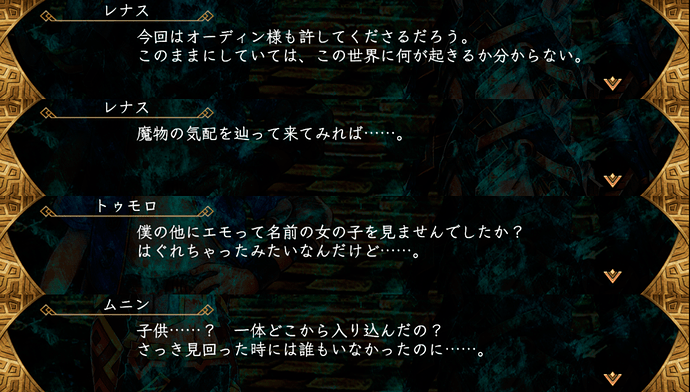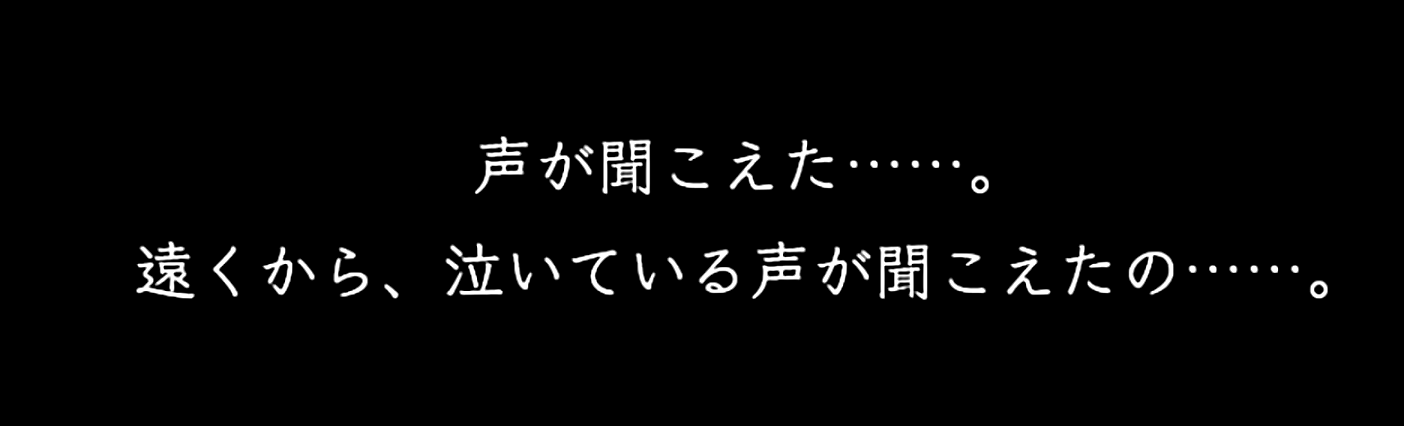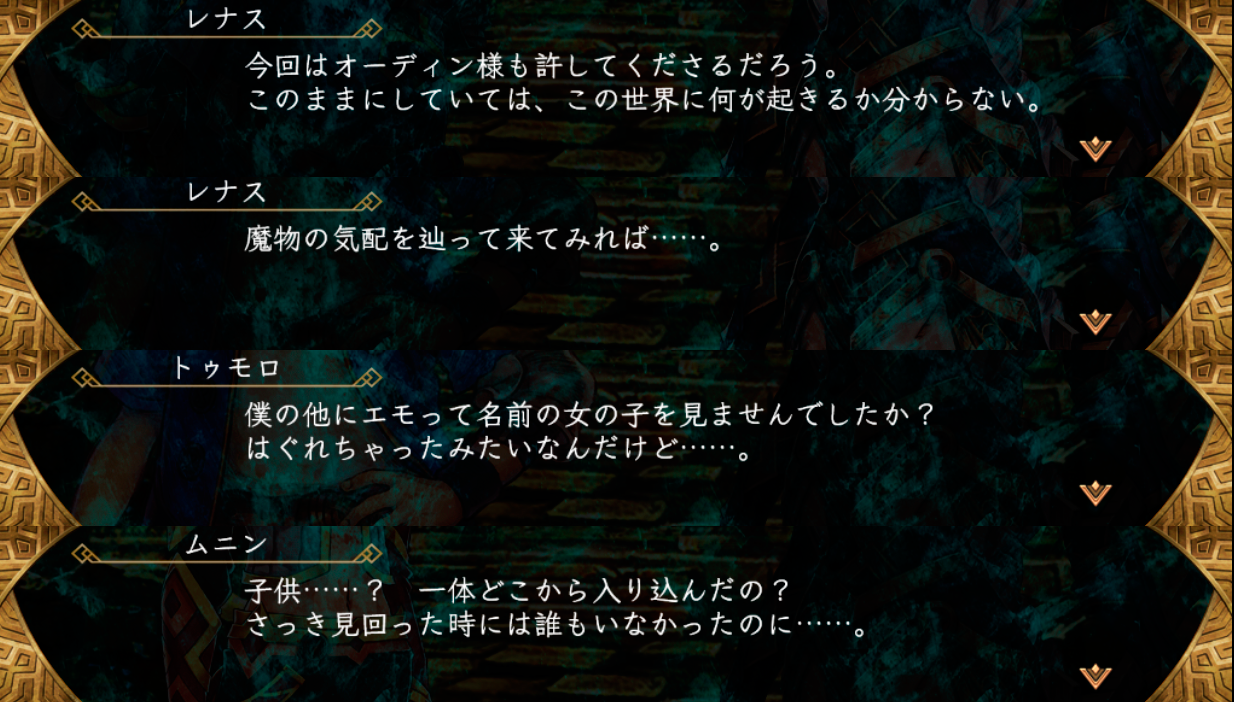
I play the mobile game Valkyrie Anatomia, and I really love the font it uses. It’s light and somewhat delicate, keeping all the kanji components easily visible because of it, so it’s great for me to practice with. (And yes, I practice with the denser web-typical fonts as well.) Anyways, I was wondering if anyone knows what this font is, or knows of a similar one. Any idea?
Perhaps not a 100% match, but looks a bit like Chihaya Font
That and Chihaya Gothic both look close, thank you!